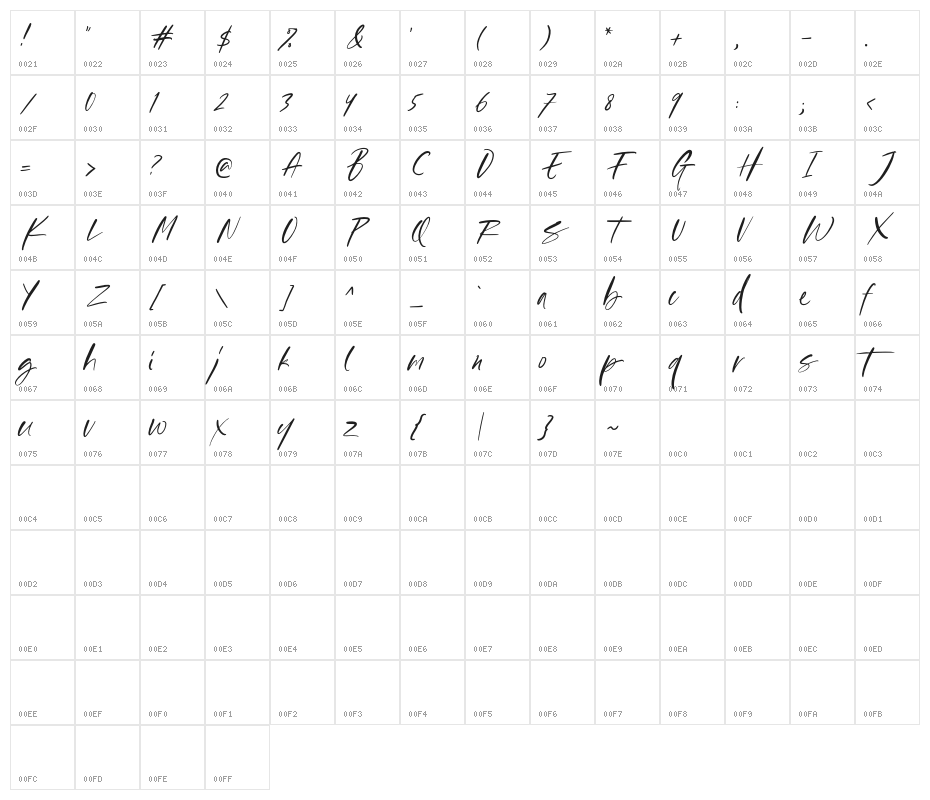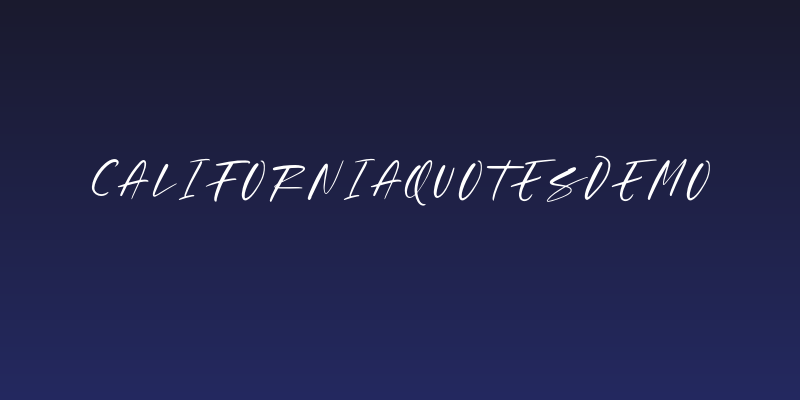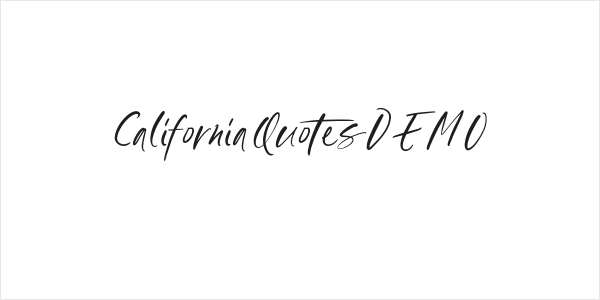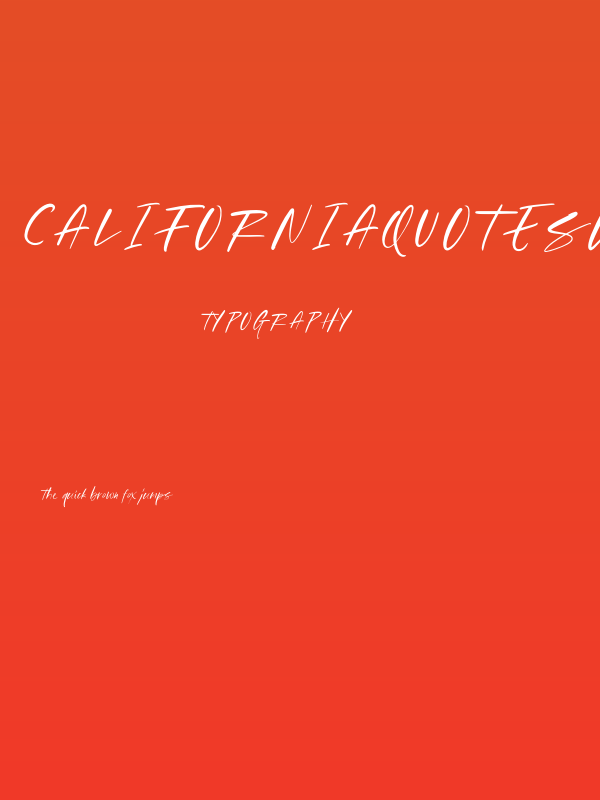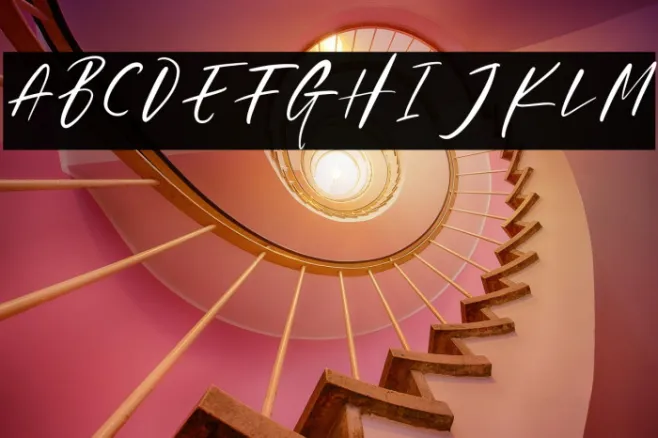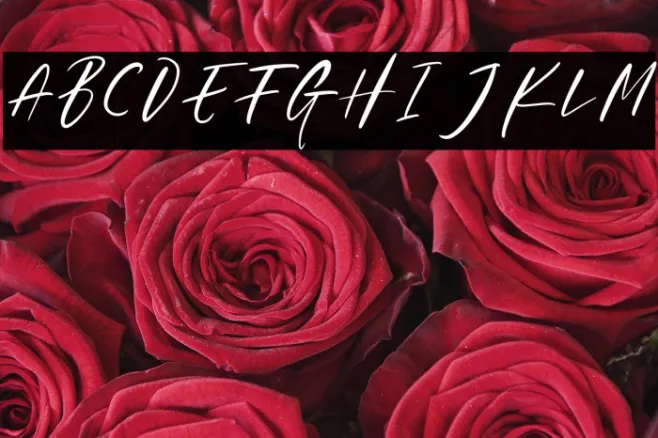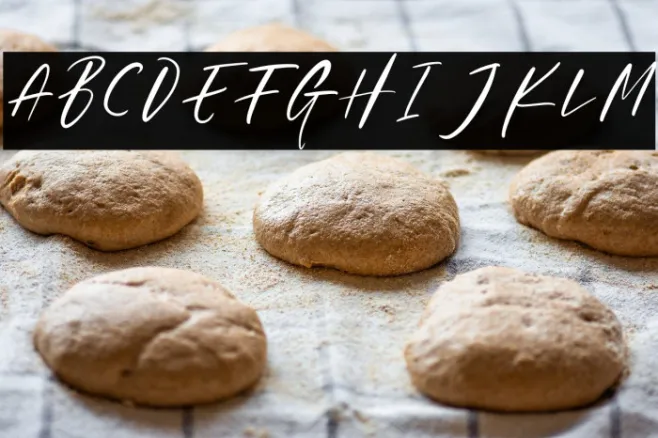
CaliforniaQuotesDEMO Font
CaliforniaQuotesDEMO Description
This font exudes a casual, handwritten style with a modern flair. The letters are slightly slanted, giving a sense of motion and fluidity. The strokes vary in thickness, adding a dynamic and lively feel to the text. The uppercase letters are bold and prominent, while the lowercase letters maintain a consistent flow, enhancing readability. The numbers and special characters are crafted with the same attention to detail, ensuring a cohesive look across all elements. This font is perfect for projects that require a personal touch, such as invitations, greeting cards, or branding materials.